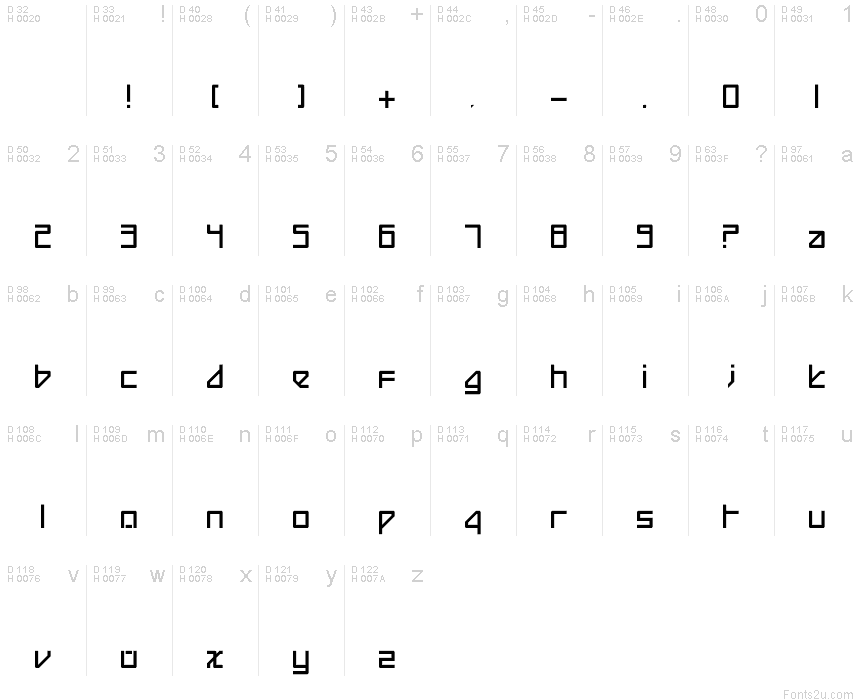
Beijing Redux Thick Regular
This is a set of 2 new fonts.
Redux Thick:
"I felt the Beijing formula needed a little tweaking, and so set to work re-doing a few letters + signs/symbols. This has the same thickness, but letters like M W H and Y have been tweaked, and now look less odd.
Redux Thin:
This is the Thick formula, but as usual with Redux fonts, 50% thinner. Its quite a fine font, but I think suits the font quite well."
Made in 2009.